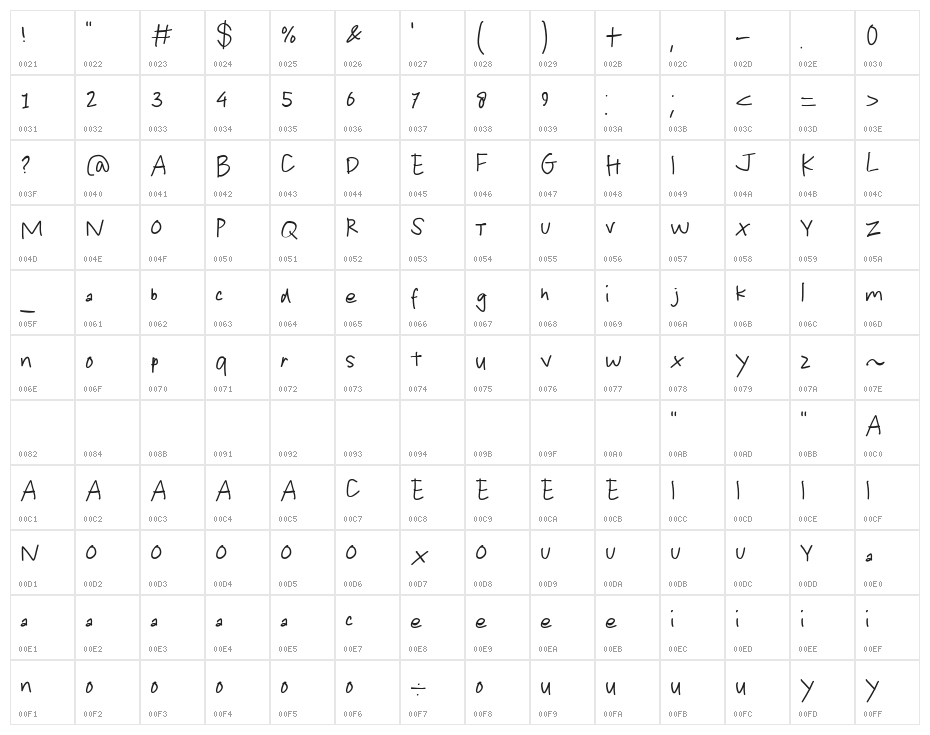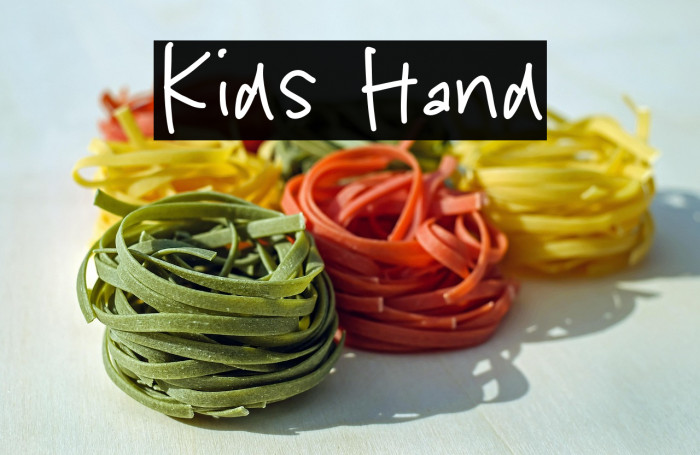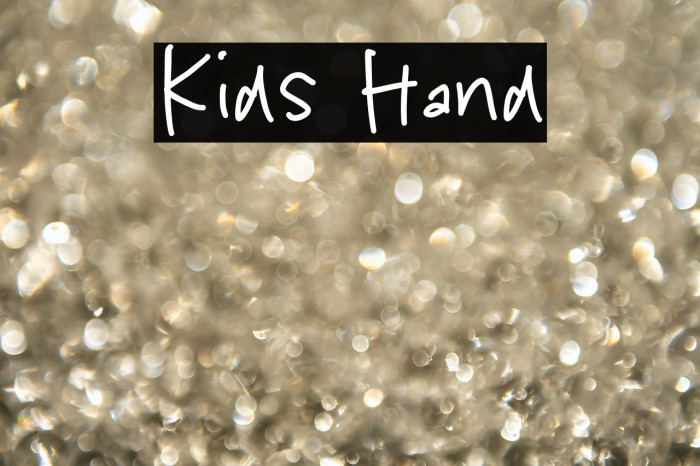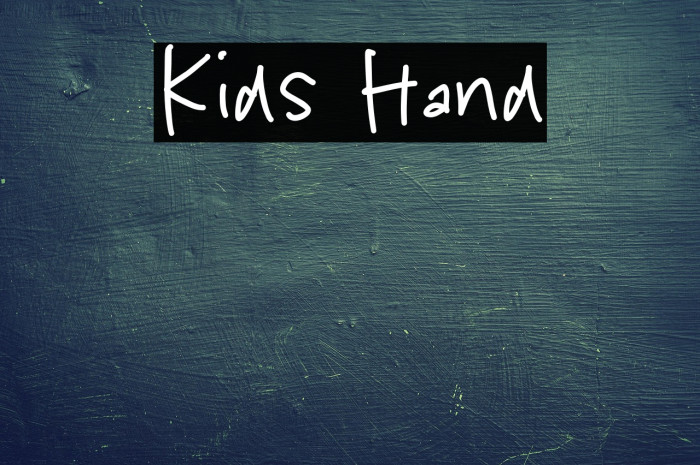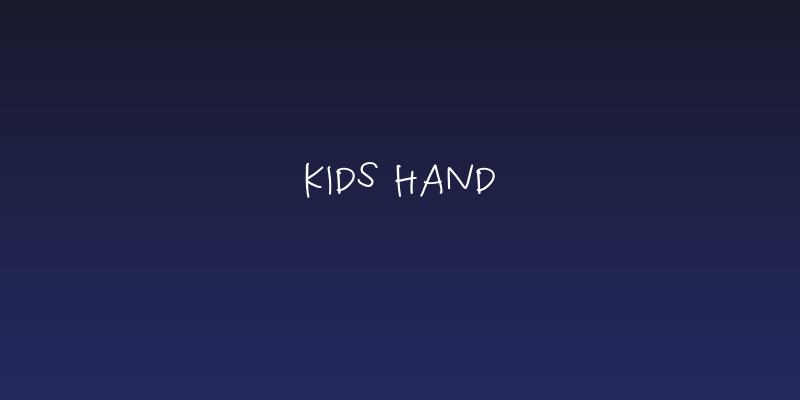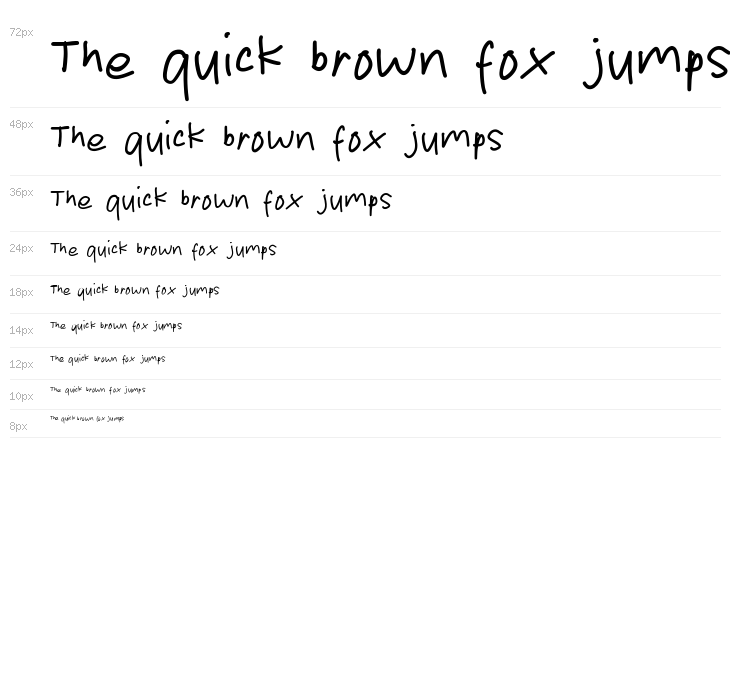
Kids Hand Font
Kids Hand Description
This playful and informal font mimics the natural, unrefined handwriting of a child. The letters are unevenly sized and spaced, giving it a whimsical and carefree appearance. The strokes are smooth and rounded, with a slight tilt that adds to its casual charm. The font includes both uppercase and lowercase letters, numbers, and a variety of special characters. Its simplicity and innocence make it ideal for projects that aim to convey a sense of fun and creativity.
| Overall Style | Playful, Casual |
| Use Case | Headlines, Informal text, Creative projects |
| Proposed Projects | Ideal for children's books, educational materials, playful branding, and greeting cards. |